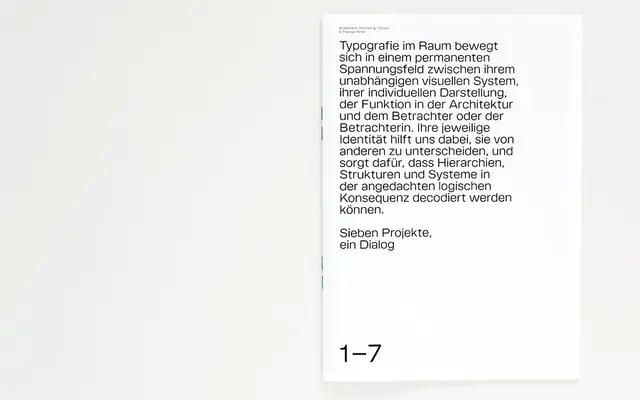
Micronova
Binnenland · Michael Mischler and Nik Thoenen · 2025
A Swiss geometric sans by Michael Mischler and Nik Thoenen, reworking the Eurostile and Microgramma lineage through a three-axis variable font with weight, width and x-height controls.
Rooted in Aldo Novarese's super-elliptical forms from Eurostile (1962) and Microgramma (1952), Micronova builds a precise mathematical system offering eight weights from 100 to 800, each with italic, and three defined widths accessible via OpenType features or variable font sliders. The x-height axis adds a further layer of control, making it a disciplined tool for fine-tuned typesetting at any size in print or screen contexts. It also serves as Binnenland's own corporate typeface, released in 2025.
Micronova is a geometric sans built on a mathematical, super-elliptical system derived from Eurostile and Microgramma lineage, with clean linear strokes and precisely tuned proportions consistent with the International Style tradition.